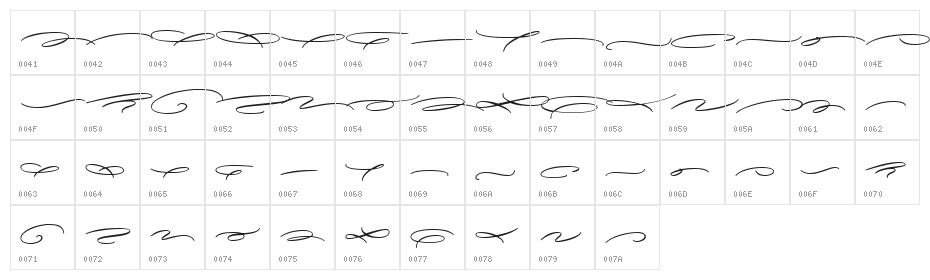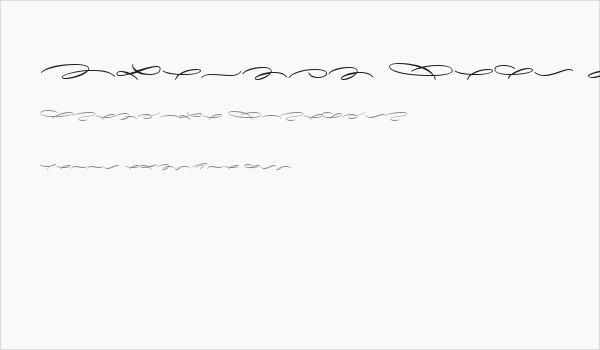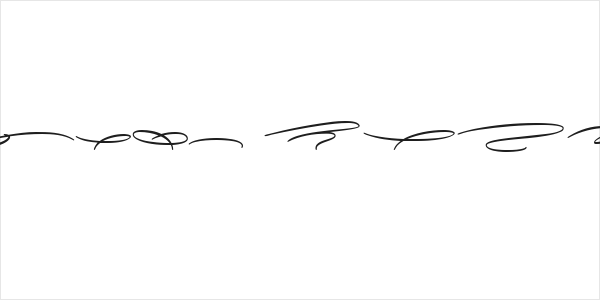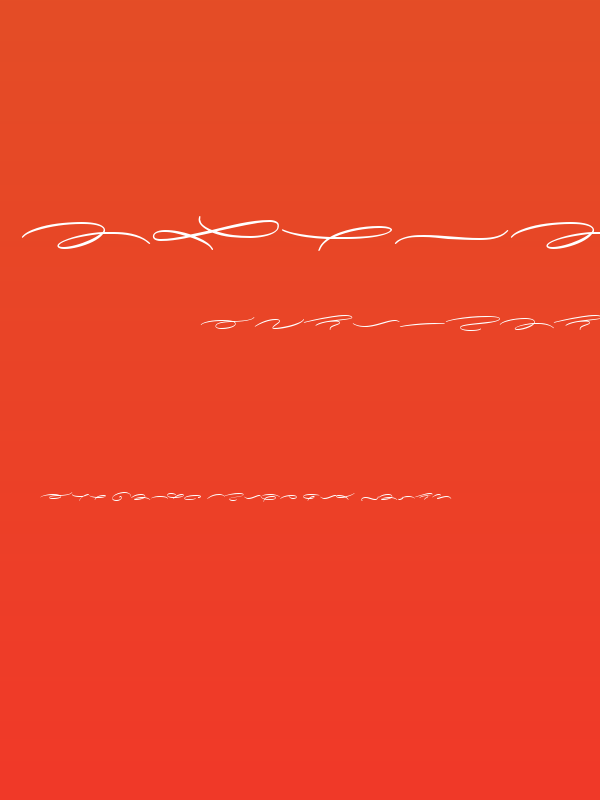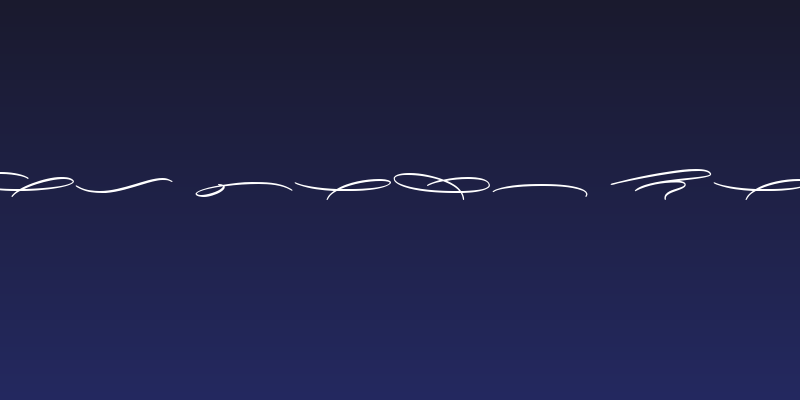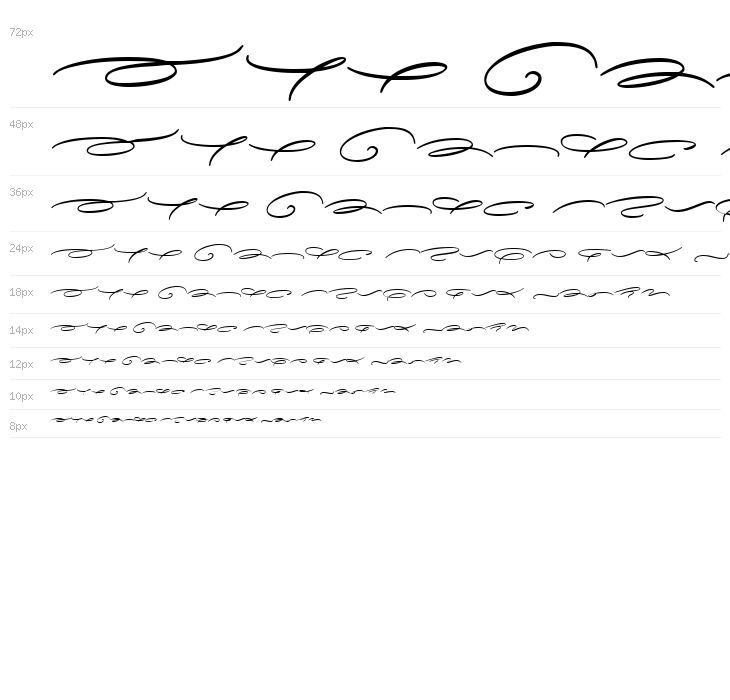
Avelana Deco Medi PERSONAL USE Font
Avelana Deco Medi PERSONAL USE Description
This font features an elegant and intricate script style, characterized by its flowing and interconnected letterforms. Each character is adorned with elaborate swashes and flourishes, creating a sense of movement and sophistication. The design is reminiscent of classic calligraphy, with a modern twist that adds a decorative flair. The strokes are delicate and consistent, offering a harmonious balance between the ornate details and the readability of the text. This font is ideal for projects that require a touch of elegance and refinement, such as wedding invitations, luxury branding, and artistic designs.
| Use Case | Logos, Invitations, Artistic designs |
| Proposed Projects | Wedding invitations, luxury branding, artistic designs, elegant stationery. |